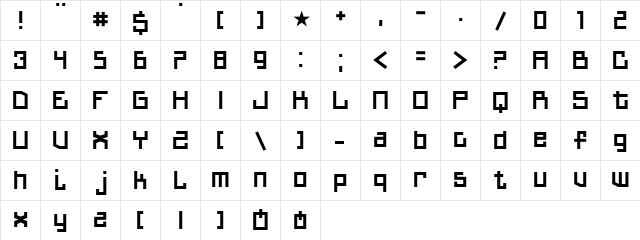
Erton Regular
| Foundry | barmee.com |
| Designer | bartek nowak |
Design Context for Erton Typeface
Erton is a composed and adaptable typeface that performs quietly and consistently across a wide range of design contexts.